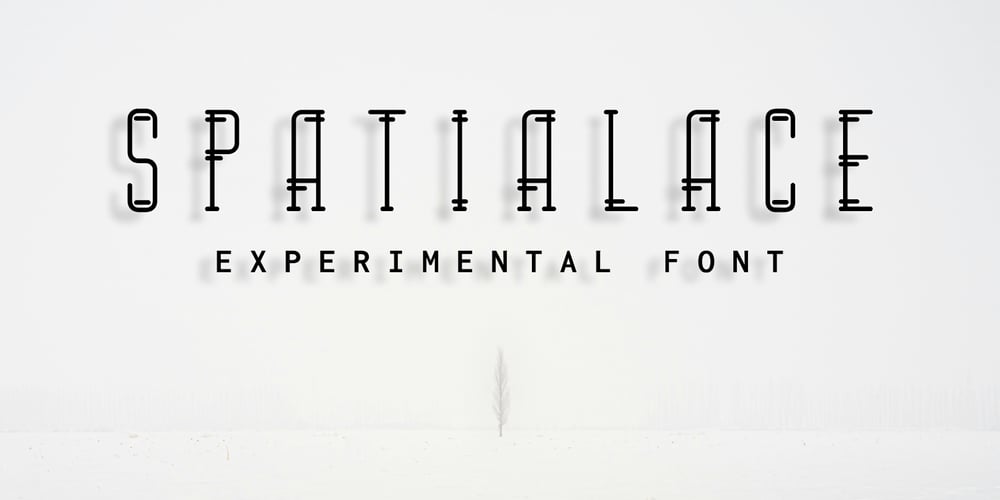
Spatialace Font Family was designed by Monica Tatontos and published by Moncimon. Spatialace contains 1 styles and family package options. Introducing Spatialace: Where Futurism Meets Fonts!Experience innovation with Spatialace: a sleek blend of sci-fi style perfect for gaming, apparels, sportswear, modern logos, etc.–Uppercase